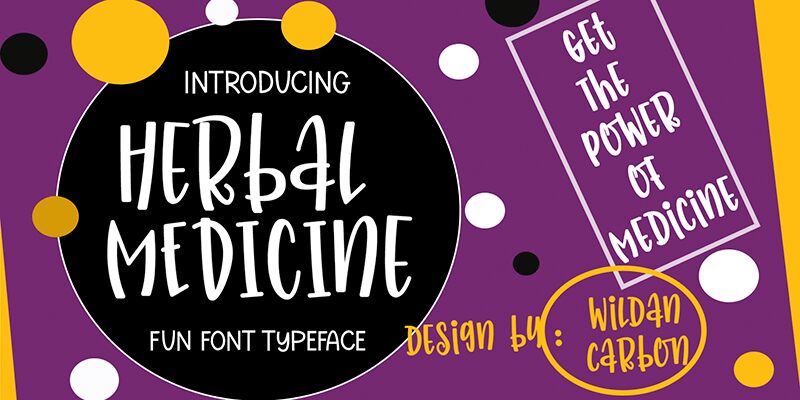
Herbal Medicine (Demo)
Herbal Medicine font by Wildan Type is a quirky and fun display cartoon font with a unique style. Its condensed letters make up for an artistic flair of organic feel, modern sensibility, and whimsy that any professional artist will fall in love with. A free handwritten font to impress.